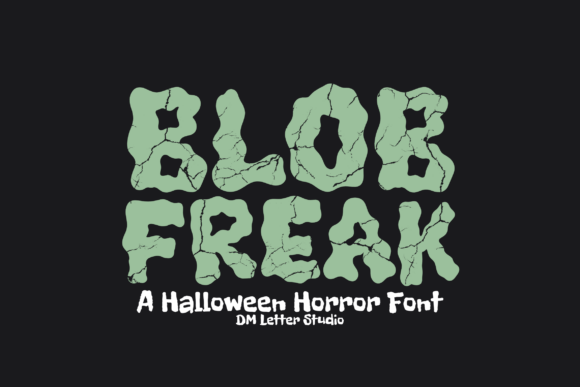
Unleash the Horror: Introducing Blob Freak Font
Are you ready to give your designs a thrillingly eerie appeal this Halloween season? Look no further than Blob Freak, a daringly peculiar typeface that’s sure to send shivers down your spine. This uniquely textured font is loaded with dripping characters that effortlessly impart a spooky persona to your creations. Whether you’re a designer, craft, or business owner, Blob Freak is the perfect choice for adding a touch of eerie elegance to your brand identity, signage, and marketing materials.
A Font that Fuses Contemporary with Creepy
Blob Freak font is a masterful blend of modern and macabre, making it an ideal choice for businesses and designers looking to create eye-catching designs that are both sophisticated and spooky. Its luxurious bold weight and one-of-a-kind texture make it perfect for high-contrast logos, ghostly menu layouts, and distinct product wrappings. Whether you’re creating an identity for a Halloween-inspired café, fabricating spine-chilling event banners, or crafting cutting-edge horror merchandise, Blob Freak typifies the ideal blend of scare and suave.
The Perfect Choice for Food and Beverage Businesses
Blob Freak font is particularly well-suited for food and beverage businesses looking to create a unique brand identity. Its eerie elegance and sophisticatedly spooky allure make it perfect for restaurants, cafes, and bars looking to create a memorable and Instagram-worthy experience for their customers. Imagine using Blob Freak to create a ghostly menu for a Halloween-themed café or to design a spooky logo for a horror-themed bar. The possibilities are endless, and the results are sure to be unforgettable.
Eye-Catching Signage and Marketing Materials
Blob Freak font is also ideal for creating eye-catching signage and marketing materials that are sure to grab attention. Its bold and textured design makes it perfect for large-format printing, and its sophisticatedly spooky allure ensures that your message will be remembered long after the Halloween season is over. Whether you’re creating event banners, flyers, or social media graphics, Blob Freak is the perfect choice for adding a touch of horror to your designs.
What Sets Blob Freak Apart
So what sets Blob Freak apart from other fonts on the market? Here are just a few things that make it a standout choice for designers and businesses:
- Unique texture: Blob Freak’s one-of-a-kind texture gives it a distinctive look that’s sure to grab attention.
- Luxurious bold weight: Blob Freak’s bold weight makes it perfect for high-contrast designs and large-format printing.
- Sophisticatedly spooky allure: Blob Freak’s eerie elegance ensures that your designs will be both memorable and Instagram-worthy.
- Versatility: Blob Freak is perfect for a wide range of design applications, from branding and signage to marketing materials and merchandise.
Get Ready to Cast a Spell with Blob Freak
With Blob Freak font, your text doesn’t just convey a message – it casts a spell. This font assures your message carries a high-end feel while still delivering a hefty dose of terror. Whether you’re a designer, craft, or business owner, Blob Freak is the perfect choice for adding a touch of horror to your designs. So why wait? Download Blob Freak today and get ready to unleash the horror in your designs.
In conclusion, Blob Freak font is a game-changer for designers and businesses looking to add a touch of horror to their designs. Its unique texture, luxurious bold weight, and sophisticatedly spooky allure make it perfect for a wide range of design applications, from branding and signage to marketing materials and merchandise. Whether you’re creating an identity for a Halloween-inspired café, fabricating spine-chilling event banners, or crafting cutting-edge horror merchandise, Blob Freak typifies the ideal blend of scare and suave. So why wait? Download Blob Freak today and get ready to give your designs a thrillingly eerie appeal.